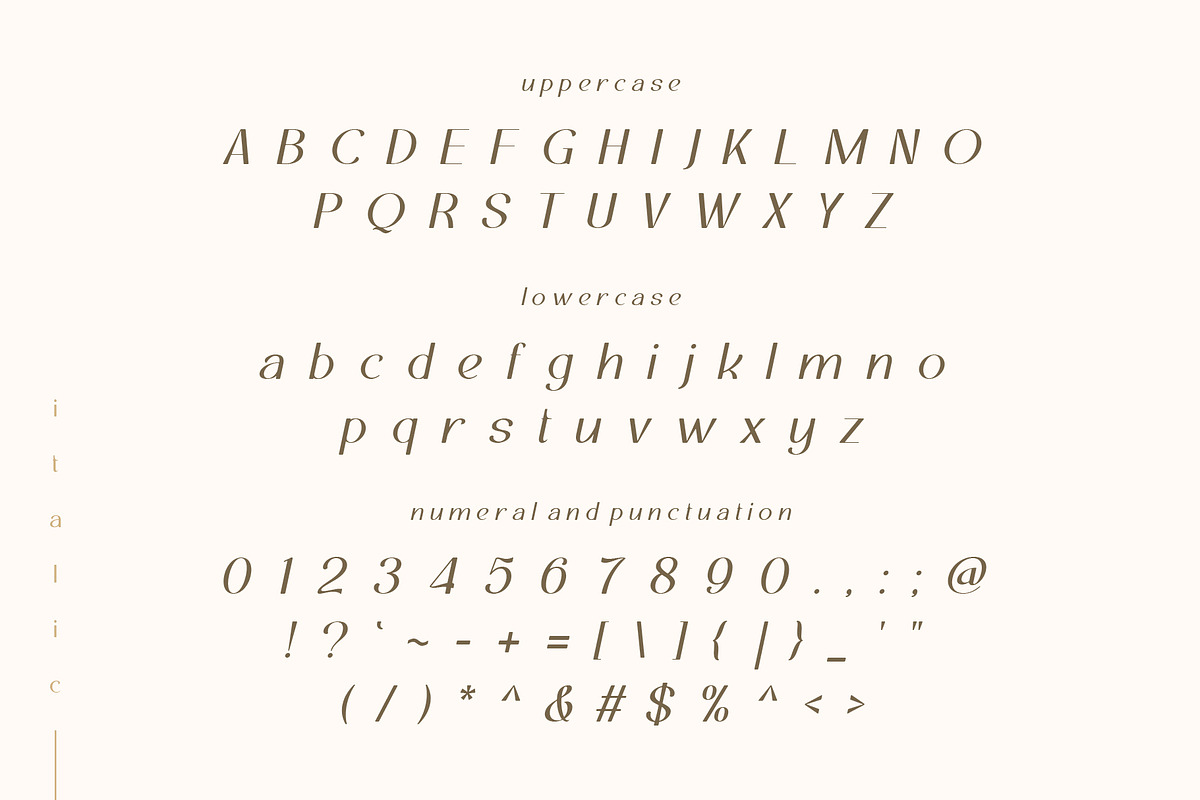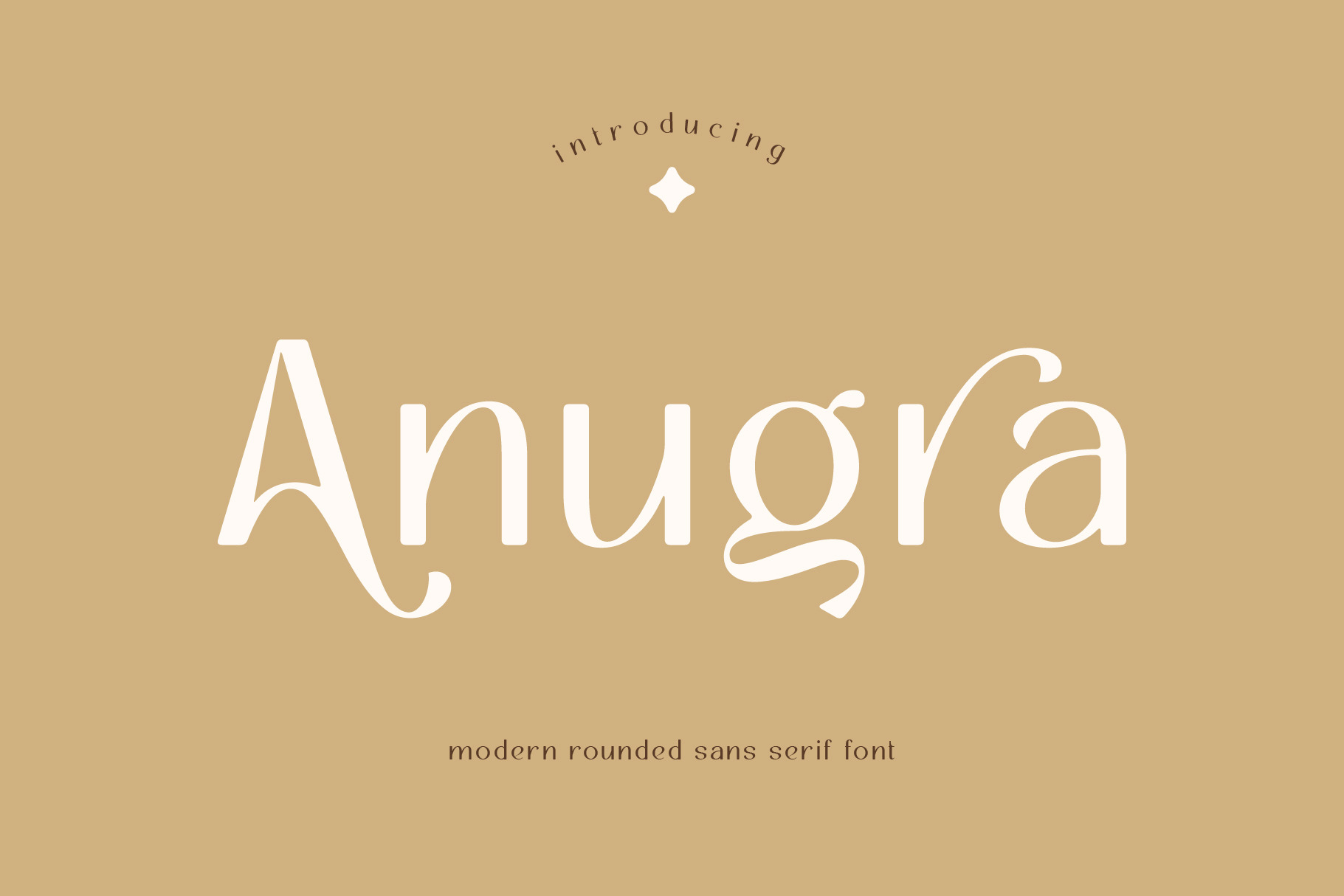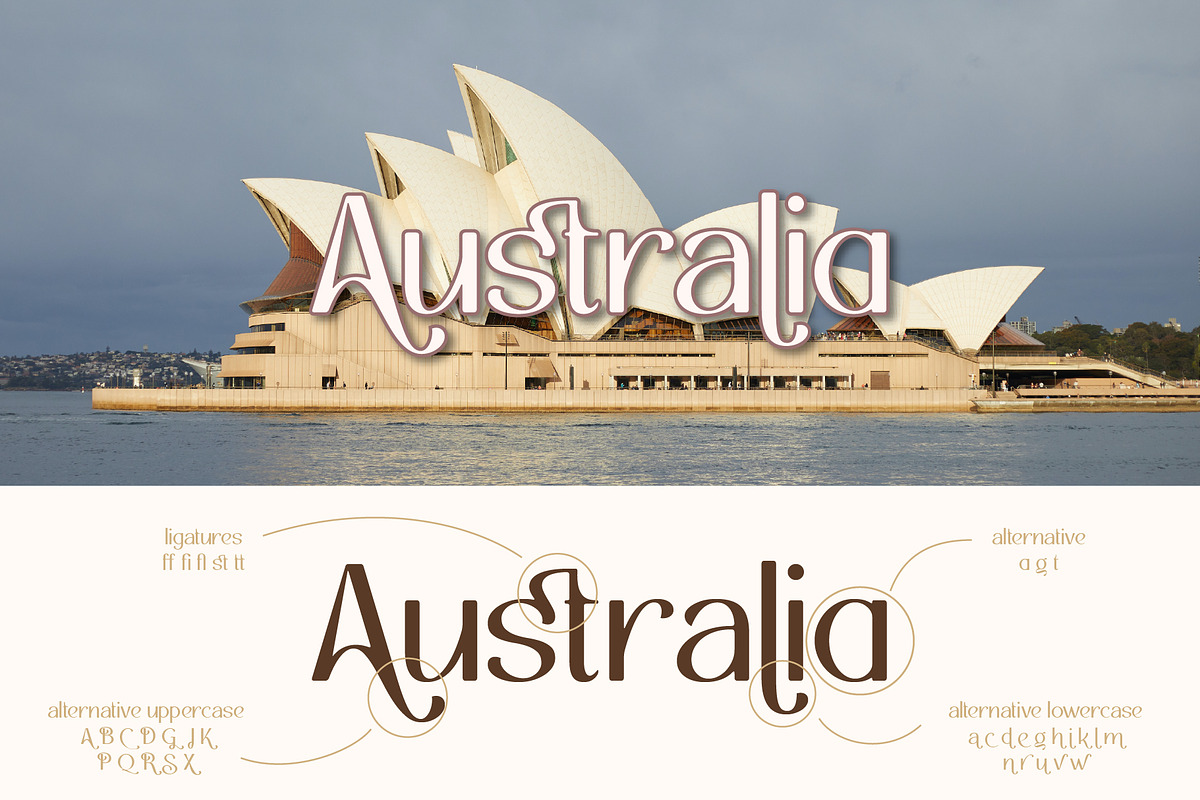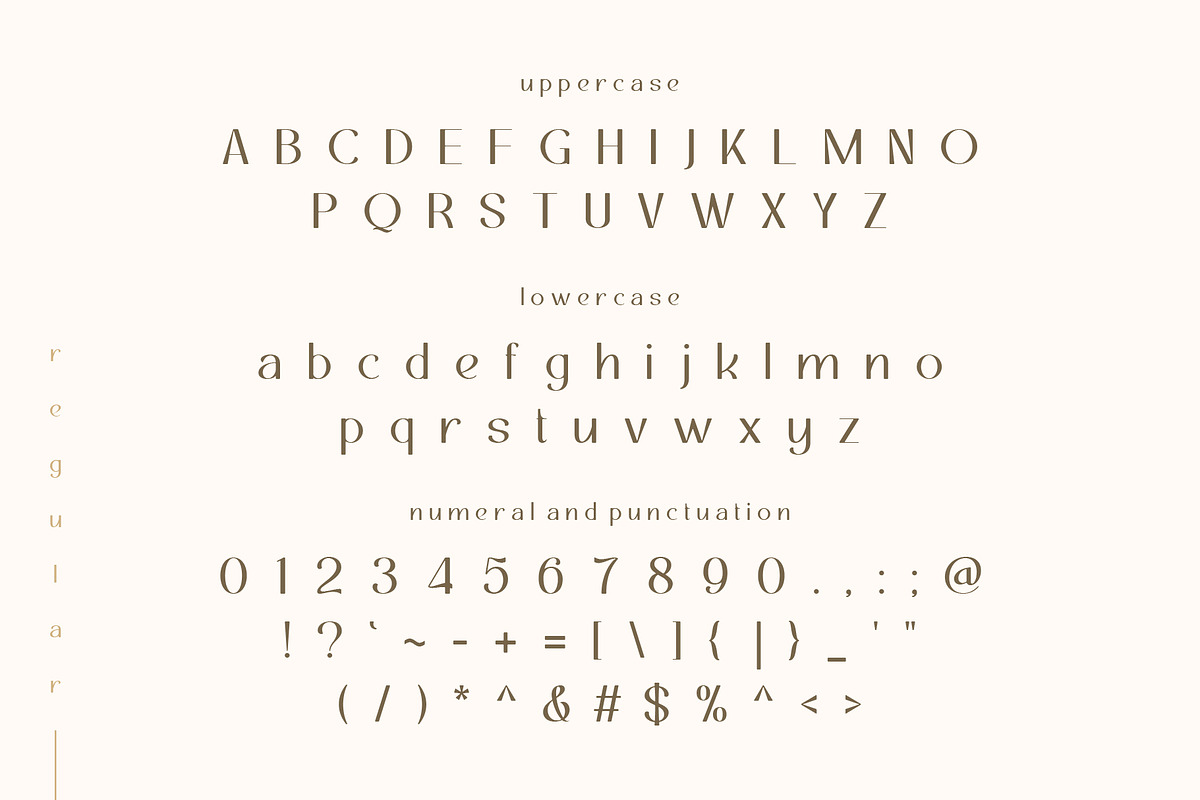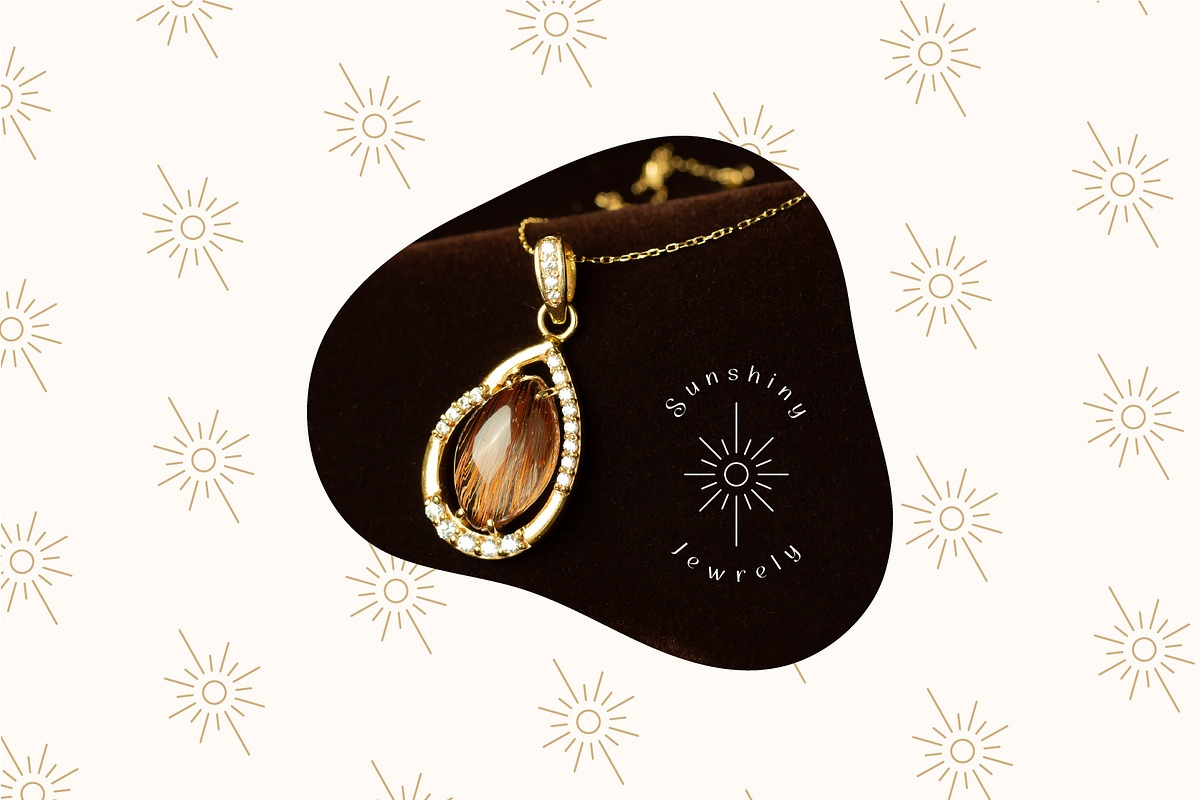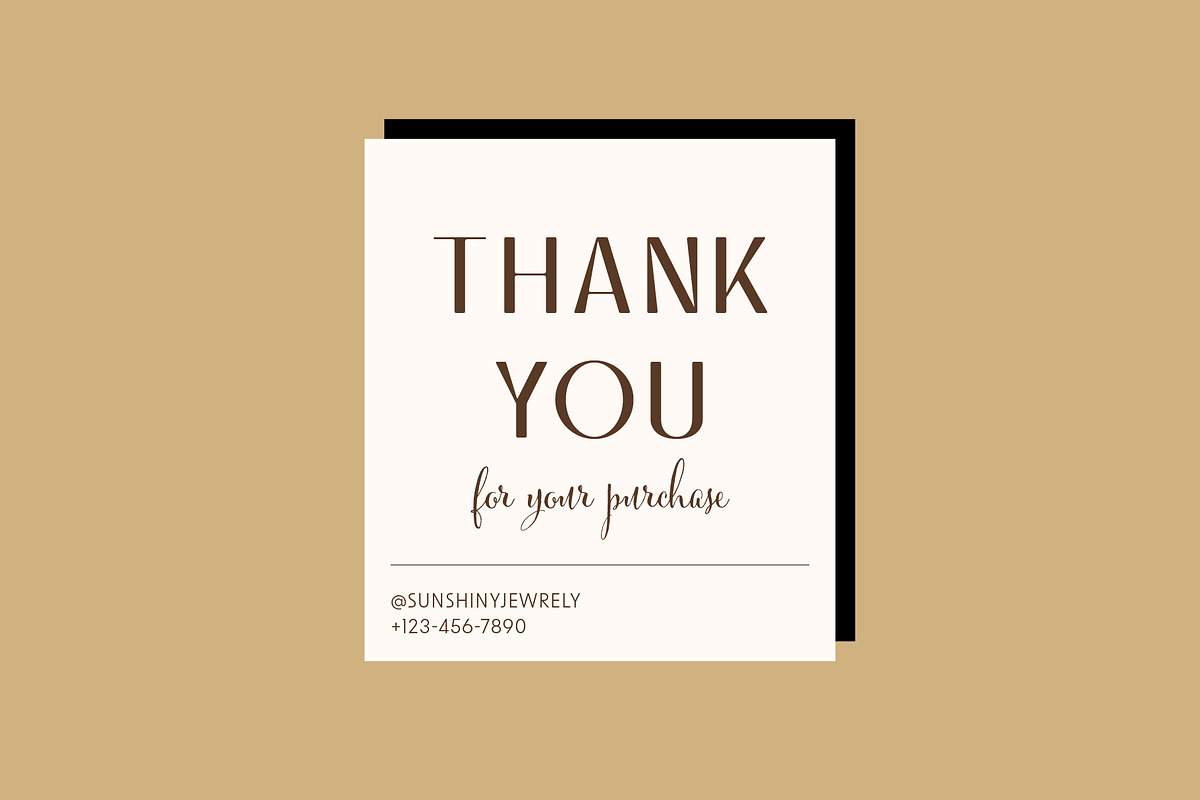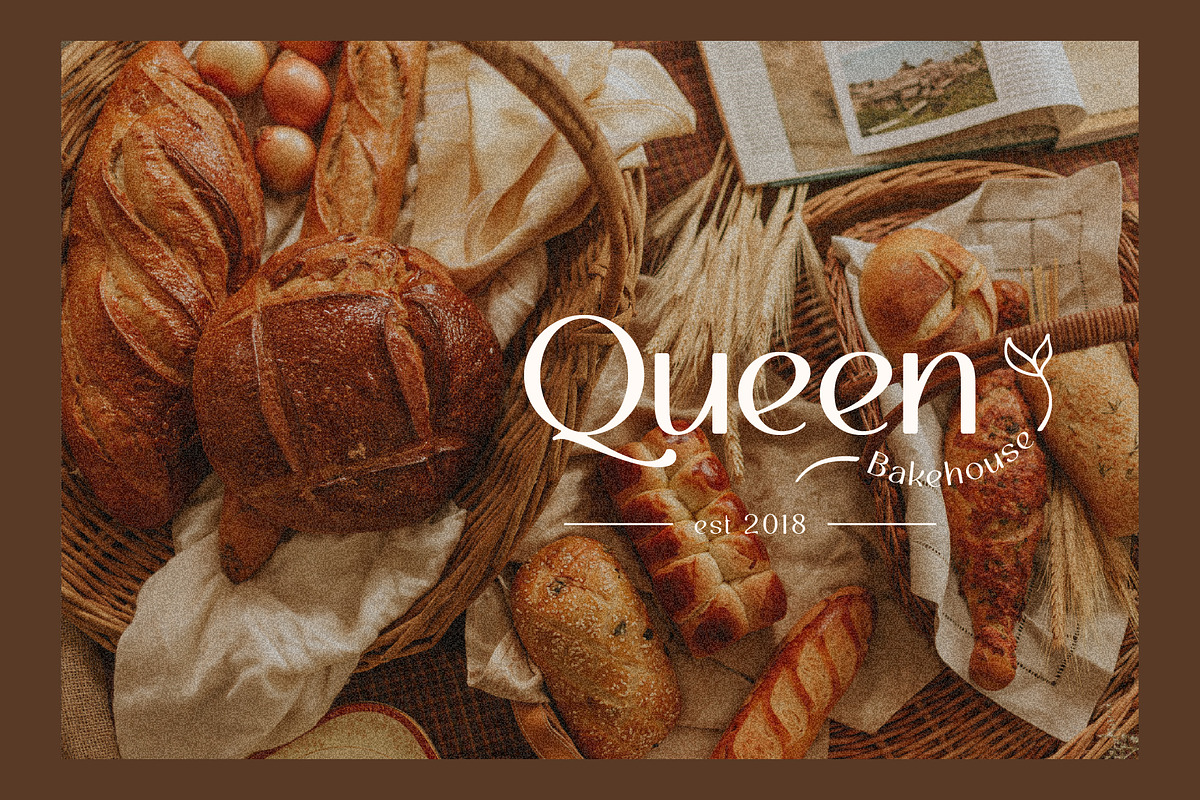
Anugra - Sans Serif Font
Check out this super sleek Modern Rounded Sans Serif font that's all about minimalist vibes! The Anugra Font has arrived to take your branding and poster design to the next level!
Anugra Font is the really nice font for those who want to make a statement without being too flashy. Its clean lines and modern aesthetic make it a great choice for logos, headlines, and body text alike. With its features, you can easily create a cohesive look for your brand or project. Plus, its simplicity makes it easy to read and comprehend, so you can be sure your message is getting across loud and clear.
- Italic
- numerals and punctuation
So, lets give Anugra Font a try and see how it can elevate your design game!